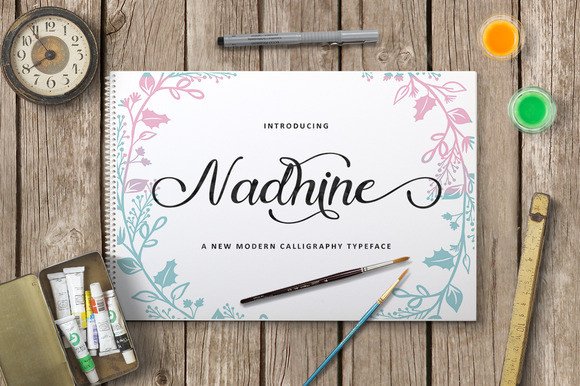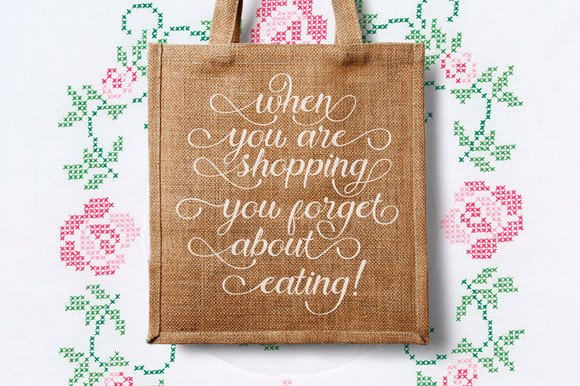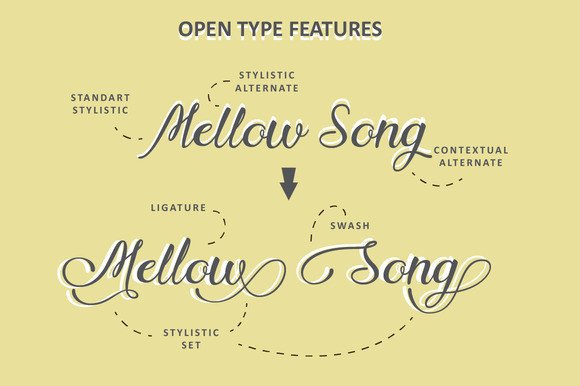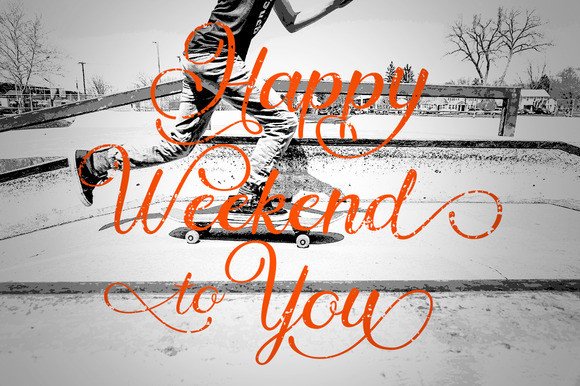
HomeScript FontsNadhine Font Script Fonts Nadhine Font FacebookXPinterestWhatsApp Nadhine Font Poster 2 Nadhine Font Poster 3 Nadhine Font Poster 4 About Nadhine Font The stunning Nadhine Script. An elegant handwritten font created by Ian Mikraz. DOWNLOAD ON CREATIVE FABRICAThis font is sold and delivered by Creative Fabrica. Font Canyon may earn a commission if you buy through this link. People also explored Kamaniya Font Crumello Font Sinner Font Quinbery Saturday Comeback Font Suech Font Buttermilk Font Zafhira Script Font French Toast Font 330 0 TagsNadhine Font Previous articleMarcella FontNext articleMellissa Font LEAVE A REPLY Cancel reply Comment: Please enter your comment! Name:* Please enter your name here Email:* You have entered an incorrect email address! Please enter your email address here Website: Save my name, email, and website in this browser for the next time I comment. Personal Use Free The Bocah Personal Use Free Read more about this font Kitsor Rauttie Personal Use Free Read more about this font Love Baby Personal Use Free Read more about this font Indonesia Dermawan Personal Use Free Read more about this font BLOG Top 10 Handwritten Fonts That Elevate Your Designs Top 10 Handwritten Fonts That Will Elevate Your Designs Handwritten fonts bring a warm, personal touch to every creative project. Whether you're designing logos, invitations,... Elegant Wedding Invitation Fonts – Handwritten & Script Fonts Using Fonts in Digital Marketing: Tips to Strengthen Your Brand Identity How to Install and Use Fonts on Windows, macOS, and Web Projects